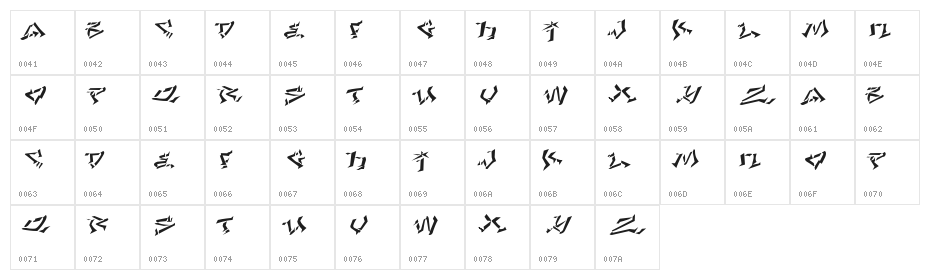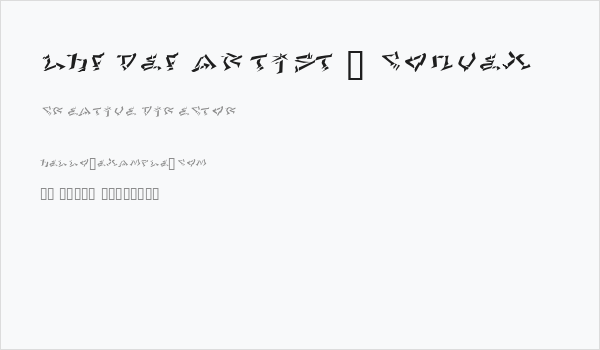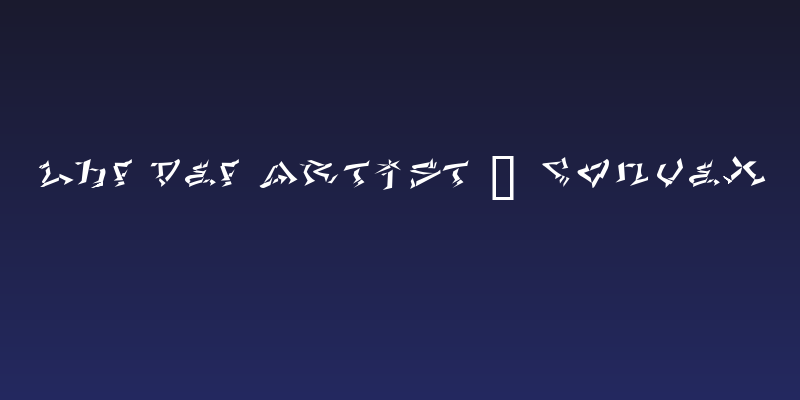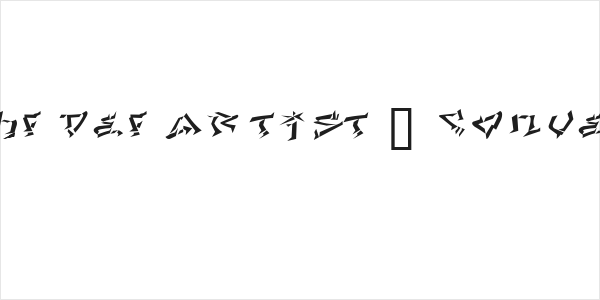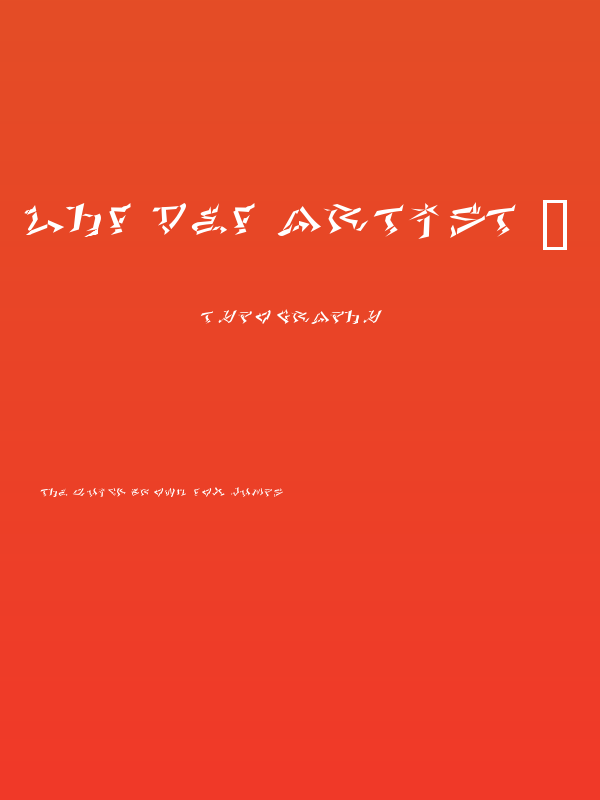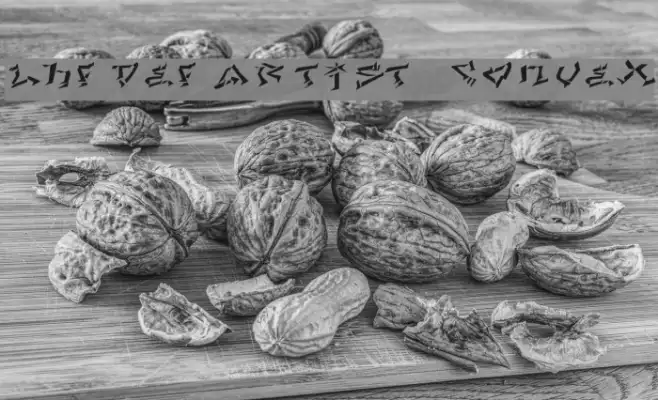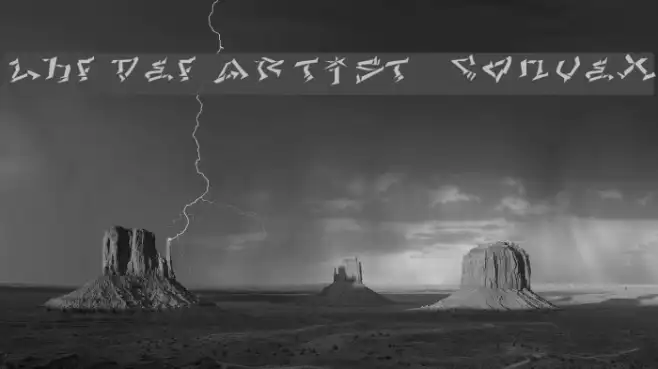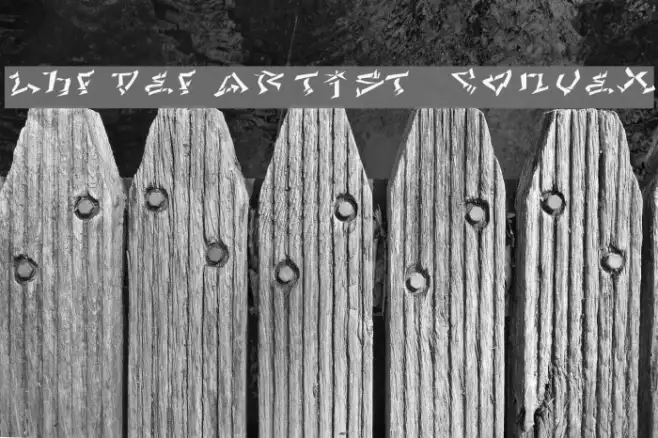
LHF Def Artist | CONVEX Font
LHF Def Artist | CONVEX Description
This font exhibits a highly decorative and edgy style, characterized by sharp, angular lines and a dynamic, fragmented appearance. Each letter is crafted with a sense of movement and energy, making it stand out with its unique, almost chaotic design. The uppercase and lowercase letters maintain a consistent theme, with jagged edges and bold strokes that create a striking visual impact. The numbers and special characters follow the same aesthetic, ensuring uniformity across all elements. This font is ideal for projects that require a bold, artistic statement, capturing attention with its unconventional and artistic flair.
| Overall Style | Modern, Artistic |
| Proposed Projects | Ideal for album covers, posters, graffiti art, and any project needing a bold, artistic statement. |